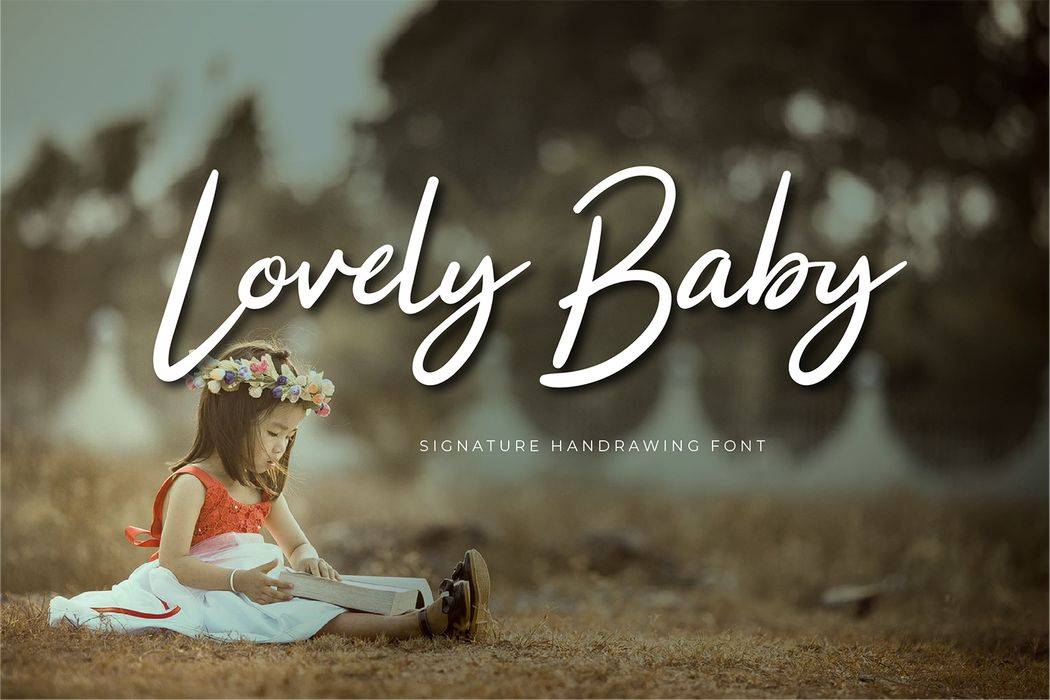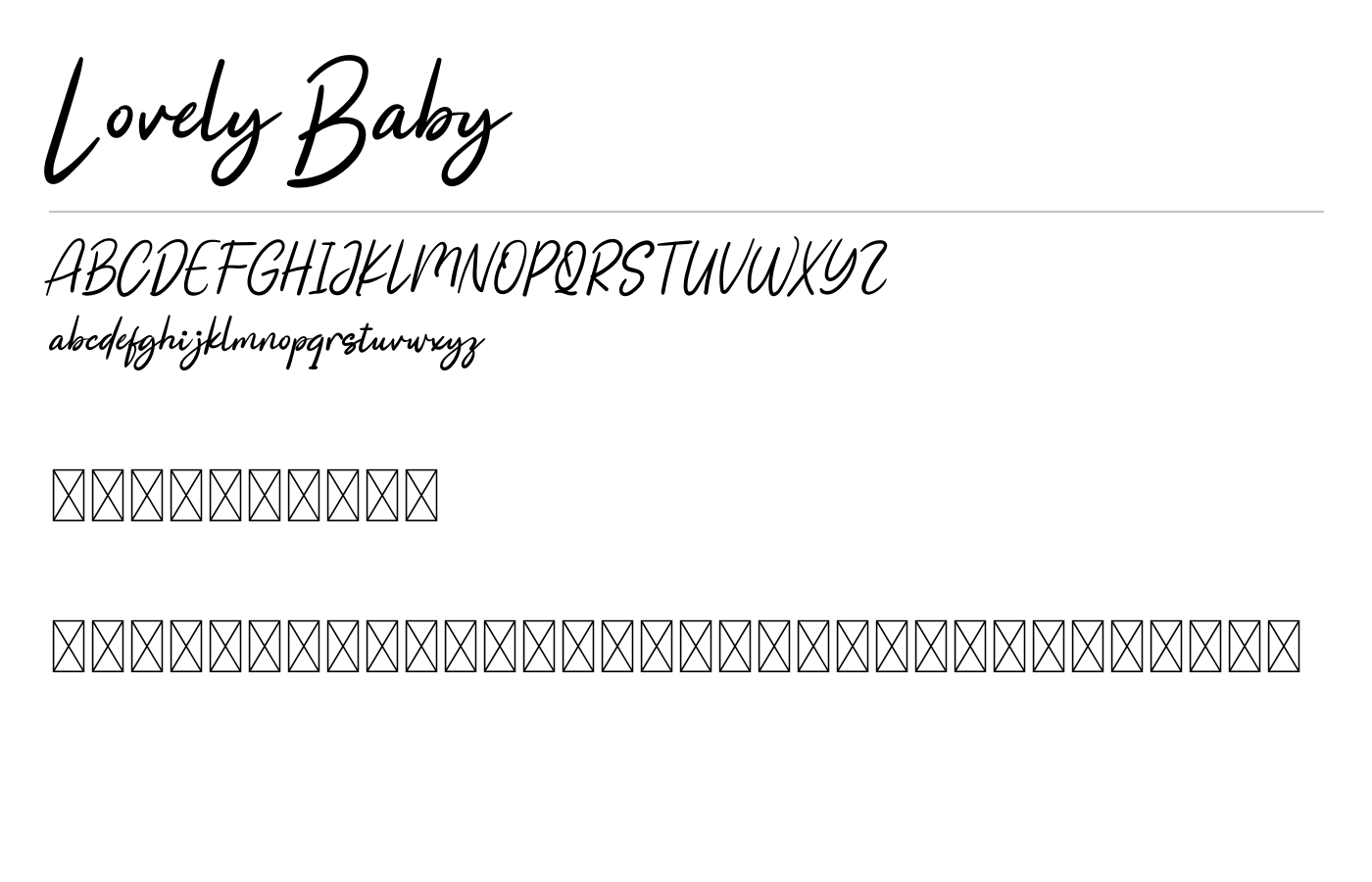
Lovely Baby Font is a slender, elegant script with a handwritten feel, featuring smooth, flowing strokes and a natural, casual style. Its fine weight and airy spacing make it perfect for designs that want to convey warmth, charm, and a personal touch, ideal for invitations, branding, and creative projects seeking a delicate yet approachable look.
Lovely Baby Font
About Lovely Baby Font